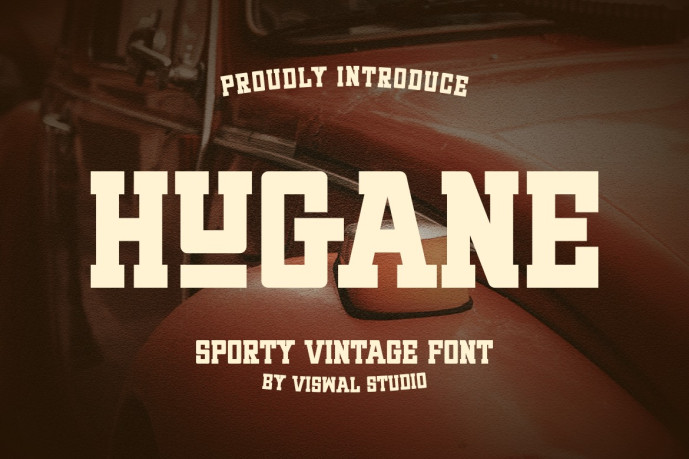
Hugane Font
Designer: Viswal
Hugane Font a sporty, vintage typeface. It can easily convey your message effectively in your design. The font is suitable for logos, labels, badges, branding, magazines, posters, titles, concerts, covers, and more. Our fonts feature uppercase and lowercase letters, numbers and punctuation, and open type. For stunning designs, you can combine it with other complementary fonts.